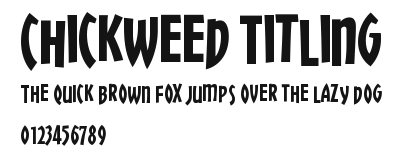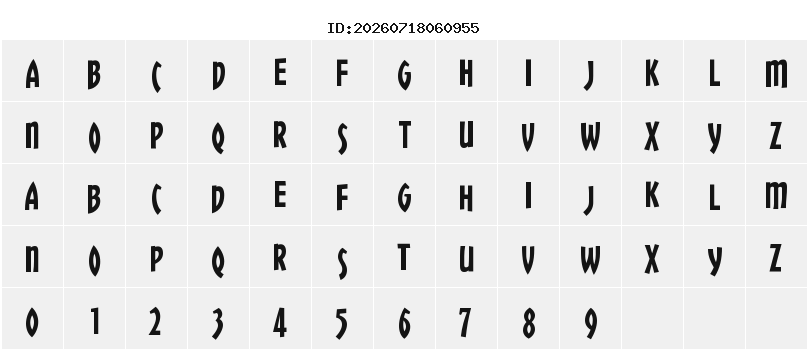
• Font Name: Chickweed Titling
• Designer: Ray Larabie
• Manufacturer: Ray Larabie
About Chickweed Titling.ttf
Chickweed Titling.ttf is a modern, elegant sans-serif font designed for ultimate readability and visual harmony. Perfect for branding, headlines, web design, and print materials.